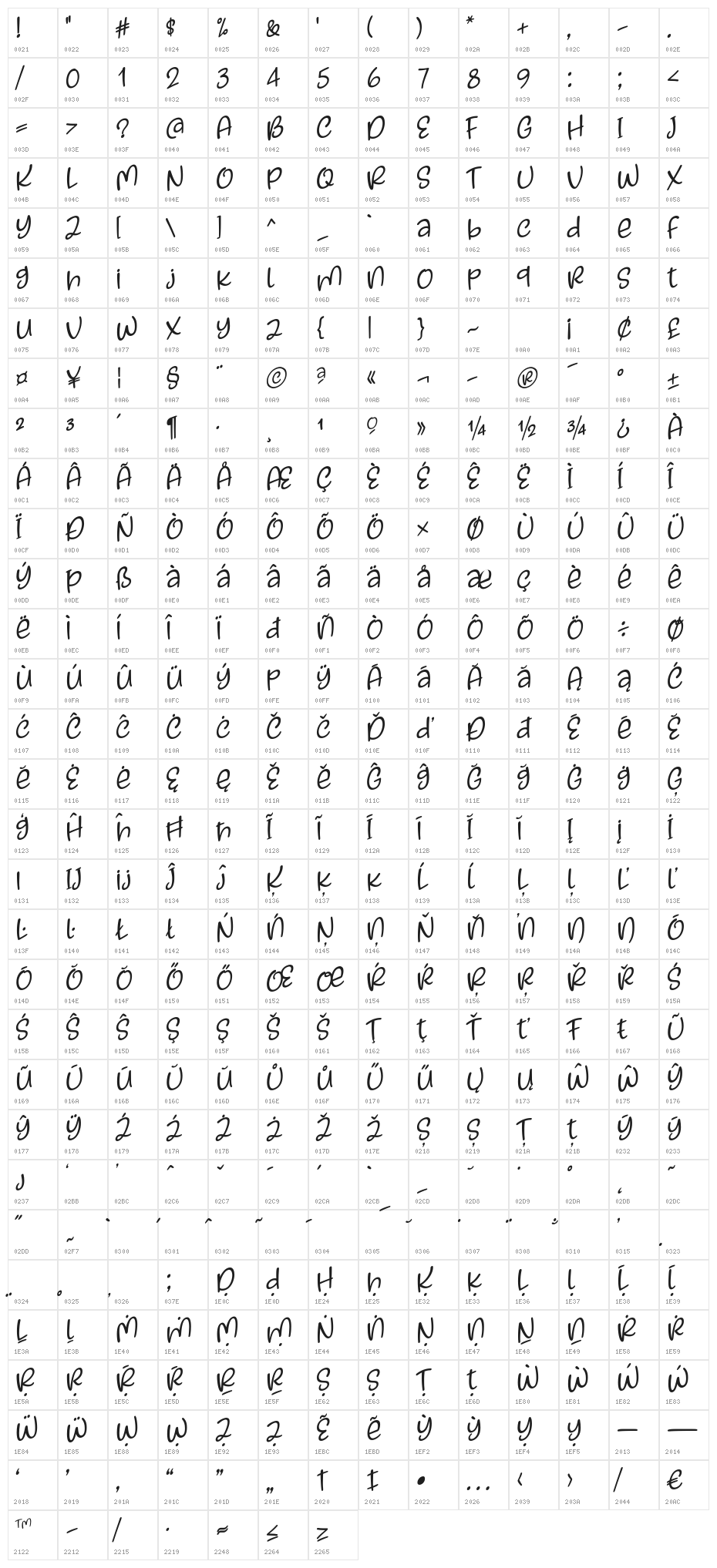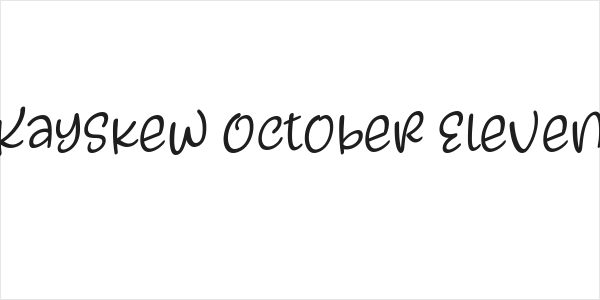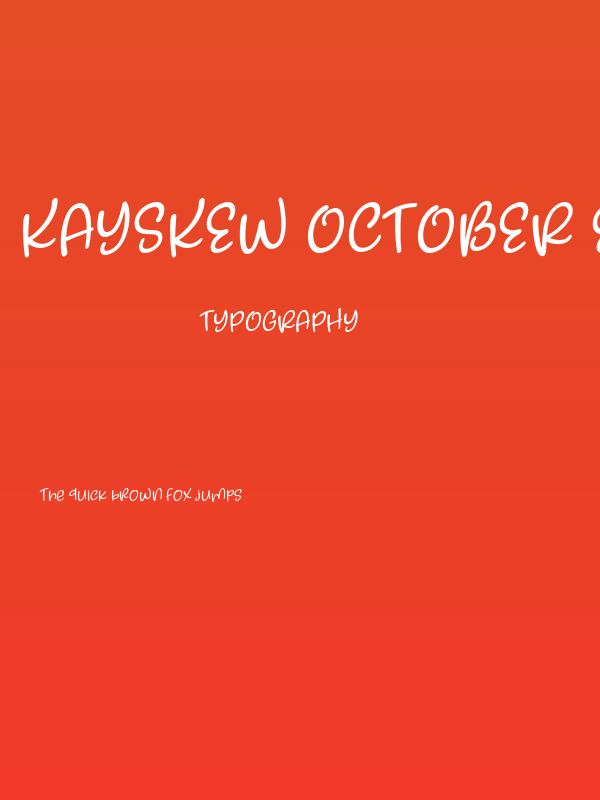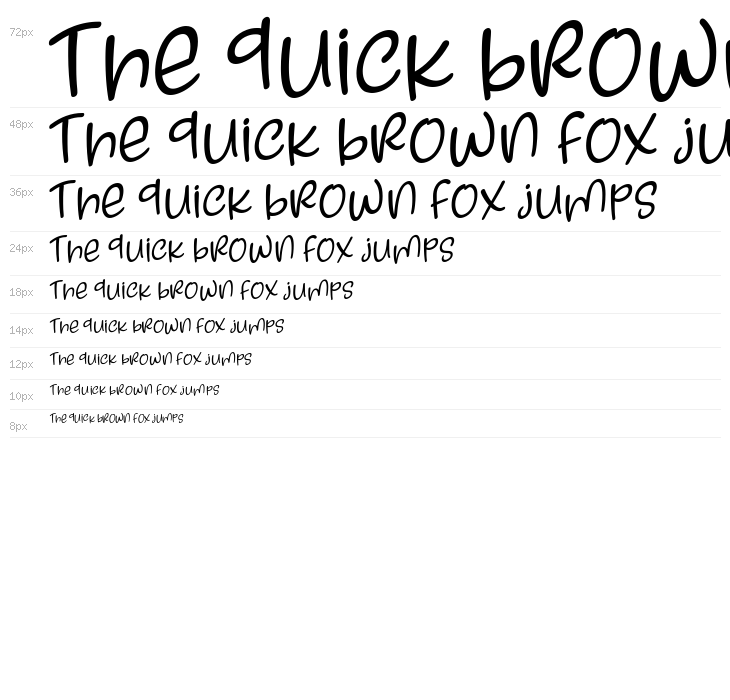
Kayskew October Eleven Font
Kayskew October Eleven Description
This font features a playful and casual handwritten style, characterized by smooth, flowing curves and a slightly irregular baseline that adds a touch of whimsy. The letters are rounded with a consistent stroke width, giving it a friendly and approachable appearance. The uppercase and lowercase letters maintain a cohesive look, while the numerals and special characters blend seamlessly with the overall design. This font exudes a sense of informality and creativity, making it ideal for projects that require a personal touch.
| Use Case | Logos, Headlines, Informal Text |
| Proposed Projects | Ideal for greeting cards, invitations, personal branding, and creative social media graphics. |